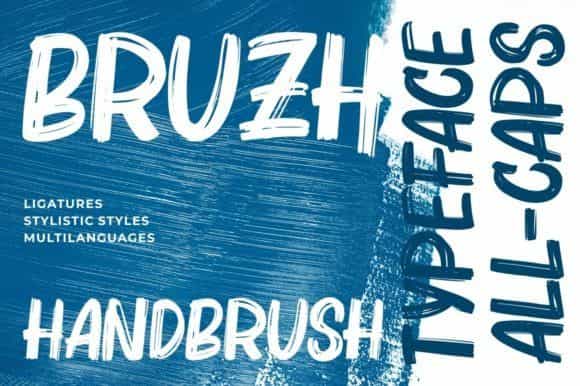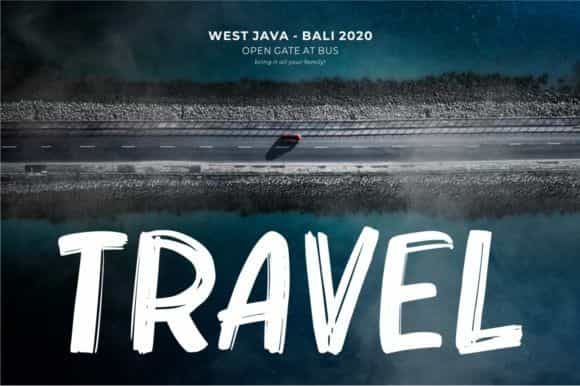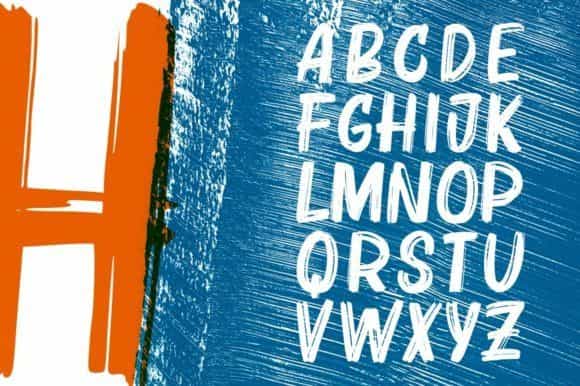
Bruzh is a script font that was designed to look like natural handwriting. It is a kind of casual drawing that can give any project its own personal touch. It contains a number of ligatures and alternative characters in order to give it an natural look.